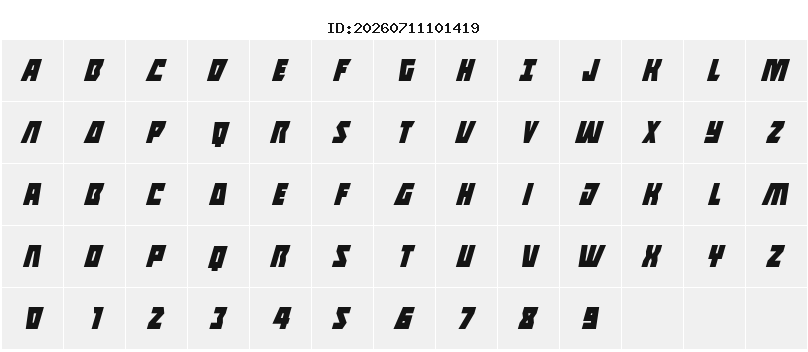
Halfshell Hero Condensed Italic Preview
• Font Name: Halfshell Hero Condensed Italic
• Font Style: Condensed Italic
• Full Font Name: Halfshell Hero Condensed Italic
About Halfshell Hero Condensed Italic.ttf
Halfshell Hero Condensed Italic.ttf is a modern, elegant sans-serif font designed for ultimate readability and visual harmony. Perfect for branding, headlines, web design, and print materials.